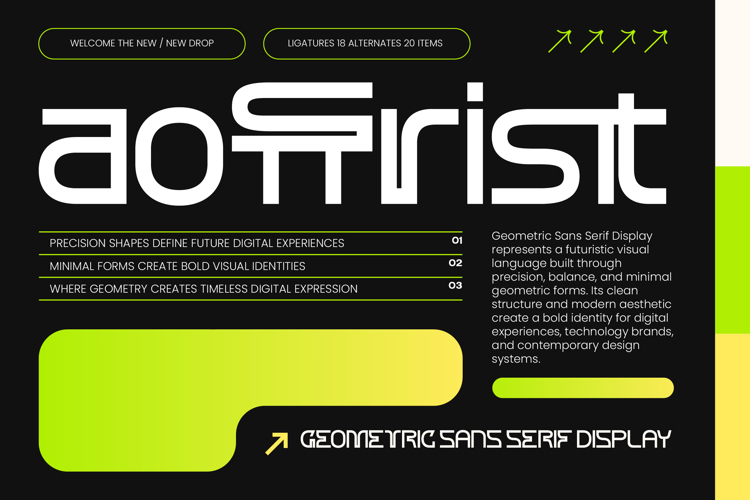
Aoffrist - Geometric Sans Serif Display
Elevate your visual narrative with a typeface designed for the future of digital and physical design. Aoffrist - Geometric Sans Serif Display is a masterclass in precision engineering and futuristic aesthetics, offering a modern display font that features minimalist geometric forms and a clean structure. By blending mathematical accuracy with artistic expression, it serves as the ultimate choice for designers seeking a bold visual identity in an increasingly competitive marketplace.
Unlock unparalleled creative flexibility through advanced typographic features that push the boundaries of standard layout design. With its comprehensive suite of unique ligatures and alternate characters, Aoffrist - Geometric Sans Serif Display allows for unlimited customization and expressive compositions. Each character is meticulously crafted to maintain perfect balance, ensuring your headlines remain timeless and impactful. With its extensive multilingual support, Aoffrist - Geometric Sans Serif Display adapts seamlessly across global markets, making it incredibly versatile for international projects.
Transform complex branding challenges into streamlined, high-end design solutions with a font built for clarity. This typeface is perfectly suited for luxury branding, high-tech startups, and editorial layouts that require a sophisticated edge. It is perfect for packaging design, digital interfaces, and modern architectural signage, where Aoffrist - Geometric Sans Serif Display delivers a premium feel. It excels in large-scale display use, providing a cutting-edge atmosphere for innovative tech brands looking to redefine their identity.